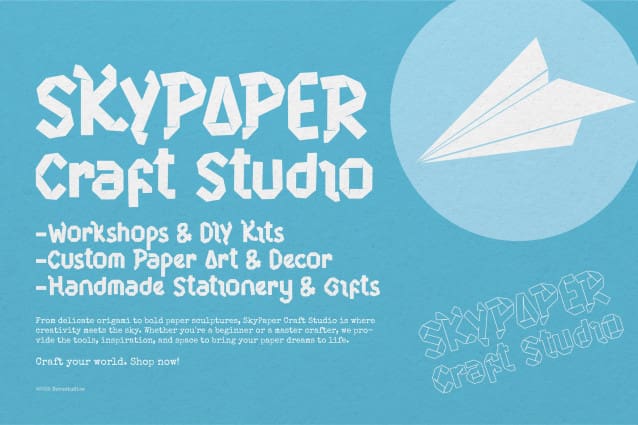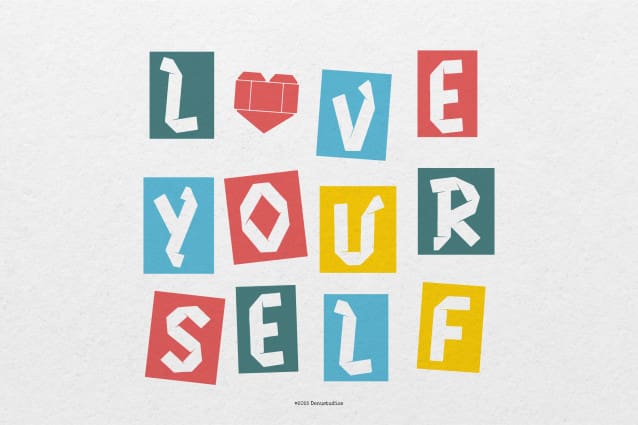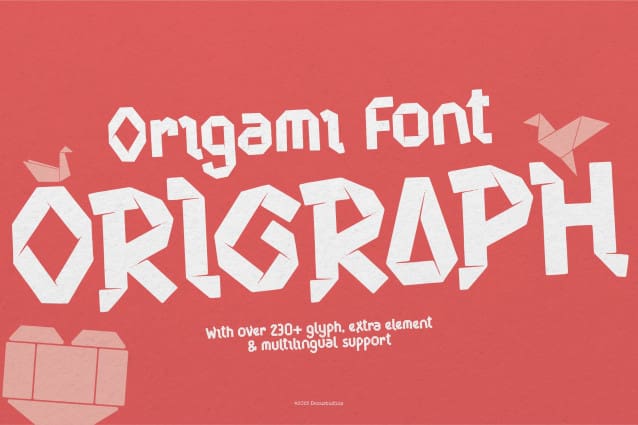
Origraph Display Font
Origraph Display Font | Origami Font, from Denustudios, suitable for any projects such as: logos, branding projects, homeware designs, product packaging, mugs, quotes, posters, shopping bags, t-shirts, book covers, name card, invitation cards, greeting cards, label, photography, watermark, special events, and all your other lovely projects that need a Origami Font taste.